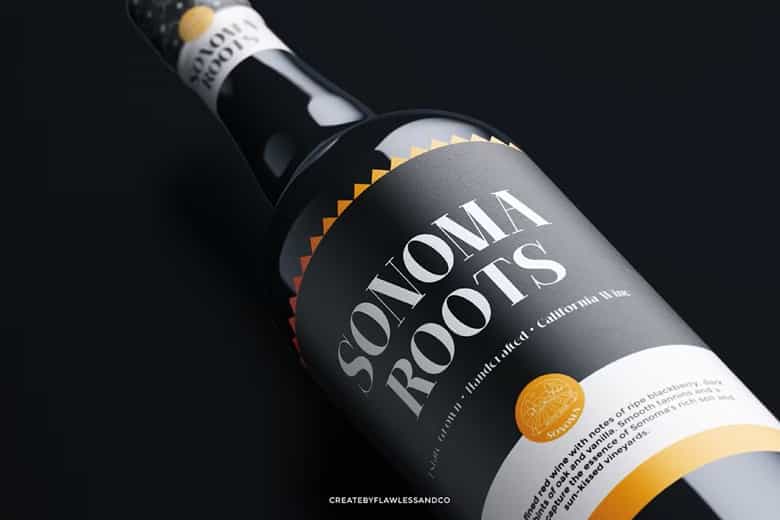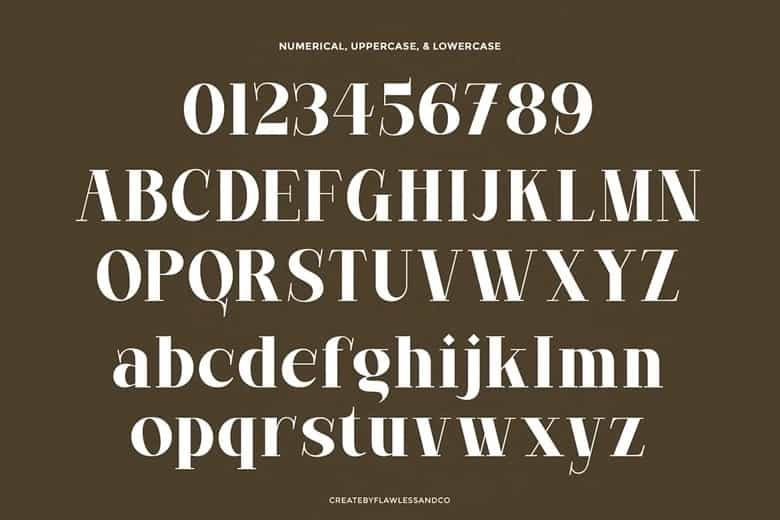
Maglicta is one of the most impressive display serif font with a touch of sophistication and confidence. Its strong contrasts, beautiful curves, and daring appearance make Maglicta stand out of any visual composition. It can perfectly complement the designers who want to add a certain luxurious and forever typeface with the touch of modernism.